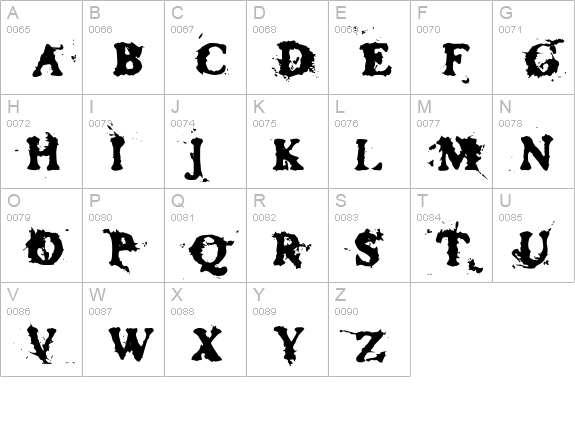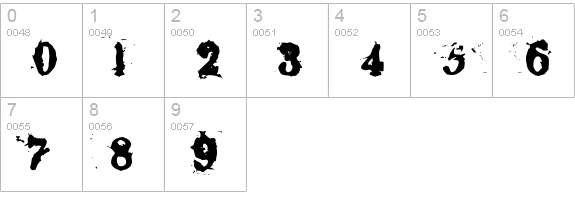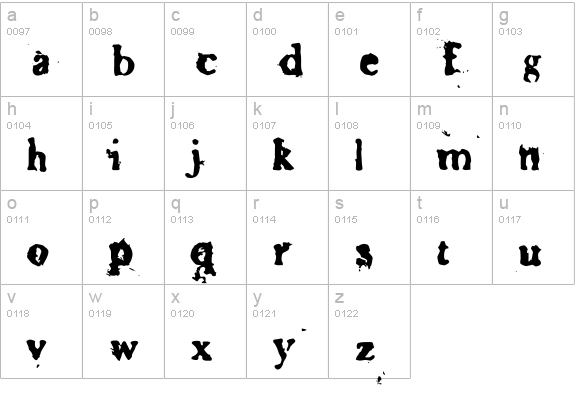
Basketcase Roman Font Details
Basketcase Roman font is a stylish and versatile typeface that exudes a sense of creativity and individuality. With its unique design and eye-catching features, this font is perfect for adding a touch of personality to any project. Whether you're designing a poster, logo, or website, Basketcase Roman font will make your text stand out. Best of all, Basketcase Roman font is available for free download at FontsMarket.com. This means you can easily access this amazing font and use it in your projects without any cost. Don't miss out on this opportunity to enhance your designs with the distinctive charm of Basketcase Roman font. Download it now and let your creativity soar!